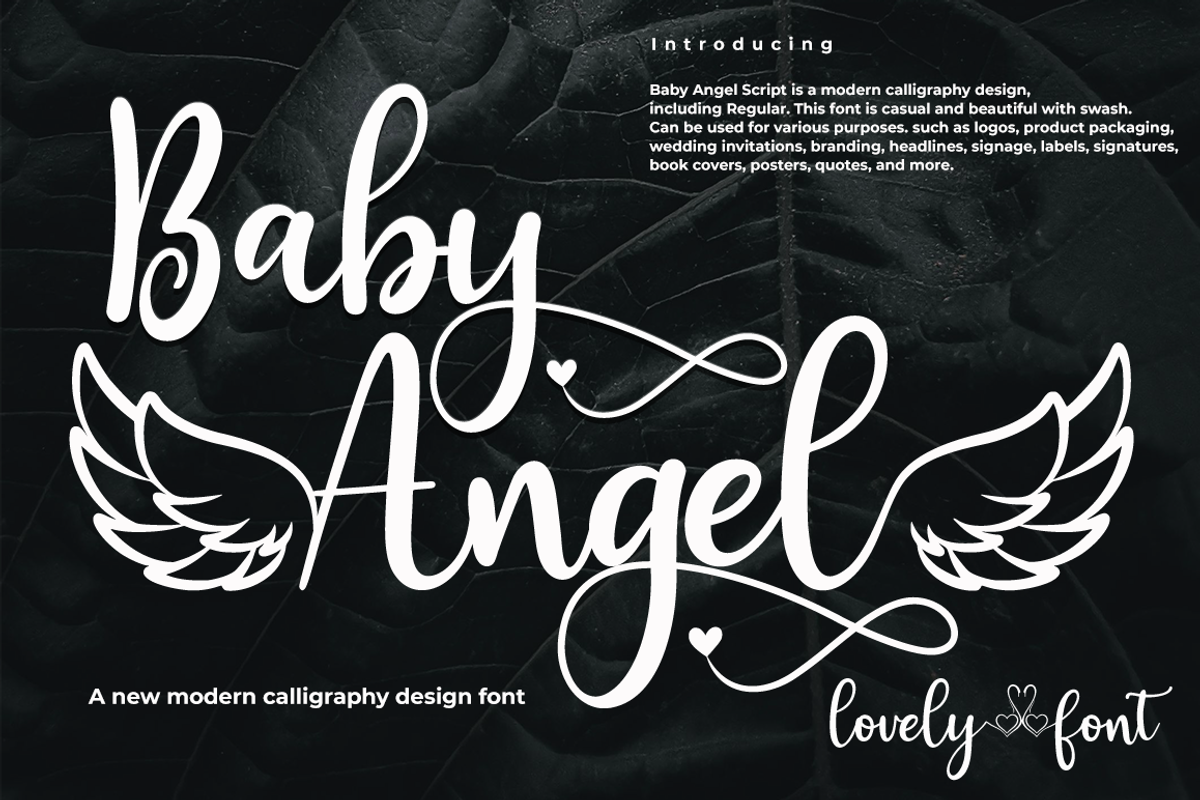
Baby Angel Font Free Download is a soft, sweet, and delicate typeface that captures the innocence and charm of childhood. Perfect for baby shower invitations, nursery decor, birth announcements, children's books, and whimsical branding, this font brings a gentle and heartwarming vibe to any design. Its rounded curves and light, airy strokes make it ideal for conveying love, warmth, and purity.
Whether you're working on a pastel-themed project or a boutique baby product, Baby Angel adds a magical, dreamy touch that feels both personal and professional. Feel free to download it for testing purposes, but don’t forget—a commercial license is required if you plan to use it for business or monetized content.
Bring softness and joy to your designs with Baby Angel Font Free Download and let your creativity shine with a font that feels like a lullaby in letter form. It’s the perfect addition to any designer’s collection focused on cuteness, care, and comfort.